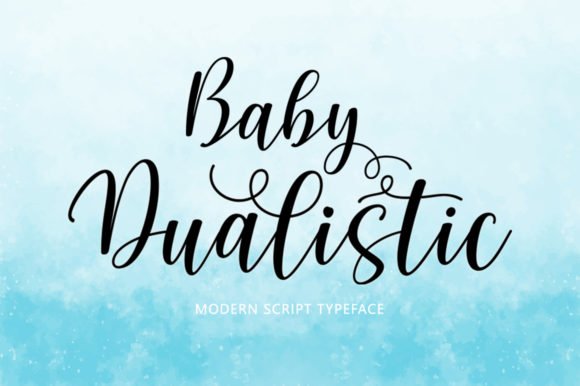
Have you ever found yourself stuck in front of your computer, staring at a blank screen, searching for the perfect font to bring your design to life? It’s a feeling we’ve all been there, and it’s frustrating to say the least. But what if I told you that there’s a beautiful script font out there that could solve all your font woes?
Meet the Baby Dualistic Font, a stunning script font designed to add a touch of elegance and sophistication to any design project. With its stylish and lovely characters, this font is perfect for branding, product packaging, invitations, and so much more. What makes it truly valuable for designers is its PUA encoding, which allows you to access all of the glyphs and swashes with ease, making it a game-changer for any creative project.
Baby Dualistic Font Key Features
- Font Family: Baby Dualistic is a unique, hand-drawn font family that offers a range of styles and weights.
- Character Set: Includes a wide range of characters, including uppercase and lowercase letters, numbers, punctuation, and special characters.
- Size and Resolution: Designed to be scalable, Baby Dualistic can be used at various sizes and resolutions, from small text to large headings.
- Unique Characteristics: Features a playful, whimsical feel, with distinctive dualistic elements that add visual interest and depth.
Baby Dualistic Font Review
Overall, I think Baby Dualistic Font is a lovely addition to any designer’s toolkit. It’s a beautifully crafted font that works well in a variety of contexts.
What works well: ✨ The unique blend of handwritten and digital elements makes it perfect for creating eye-catching headings and titles. The font also has a nice balance of curves and lines, which makes it easy to read. Additionally, the font’s versatility shines through in its various styles, from casual to formal.
- Perfect for creating attention-grabbing headings and titles
- Nice balance of curves and lines for easy reading
- Versatile styles for various contexts
Limitations: ⚠️ While Baby Dualistic Font is beautiful, it’s not ideal for large blocks of text. The font’s spacing and line height can become uneven at longer lengths, which may lead to readability issues.
Overall Impression: Baby Dualistic Font is a great choice for designers looking to add a touch of personality to their projects. While it may not be suitable for all types of content, its unique charm and versatility make it a valuable addition to any font collection.
For optimal results, use the Baby Dualistic Font in conjunction with bold or italic text to add emphasis and visual interest.
The Baby Dualistic Font is ideal for:
- Children’s book covers and illustrations.
- Infant product packaging and branding.